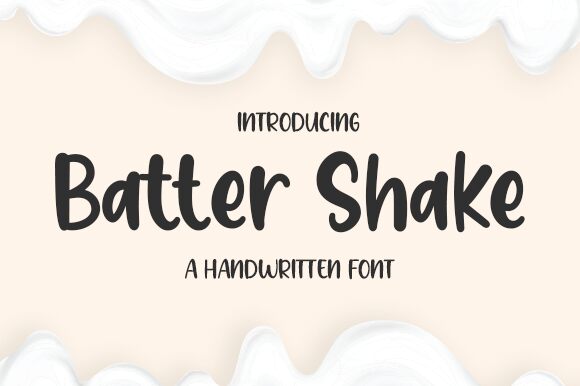
Batter Shake
Batter Shake, crafted by the creative minds at Graphix Line Studio, is a playful and robust display font that instantly infuses any project with a sense of whimsy and fun. Embodying the carefree joy of cartoon style, its bold weight ensures that each character makes a striking impact. With its rounded forms and buoyant curves, Batter Shake exudes an aesthetic appeal that is both inviting and dynamically expressive.
Ideal for designs that require a touch of lightheartedness, Batter Shake is particularly well-suited for children's books, animated movie titles, branding for family-friendly products, or any creative endeavor that benefits from an injection of youthful energy. The font's distinctive style not only captures attention but also maintains readability – a balance essential in effective communication.
Whether it's to brighten up marketing materials or to add character to event invitations, Batter Shake stands out as a versatile choice among display fonts. Its appearance—bubbly and full-bodied—encourages designers to explore playful themes while crafting memorable visuals that resonate with audiences young and old alike.